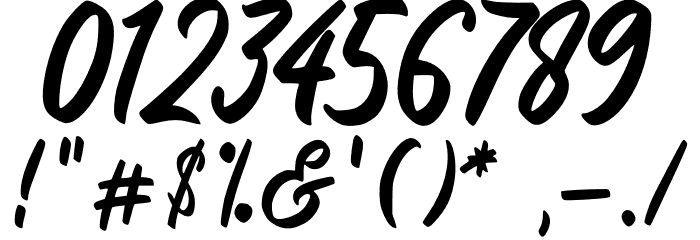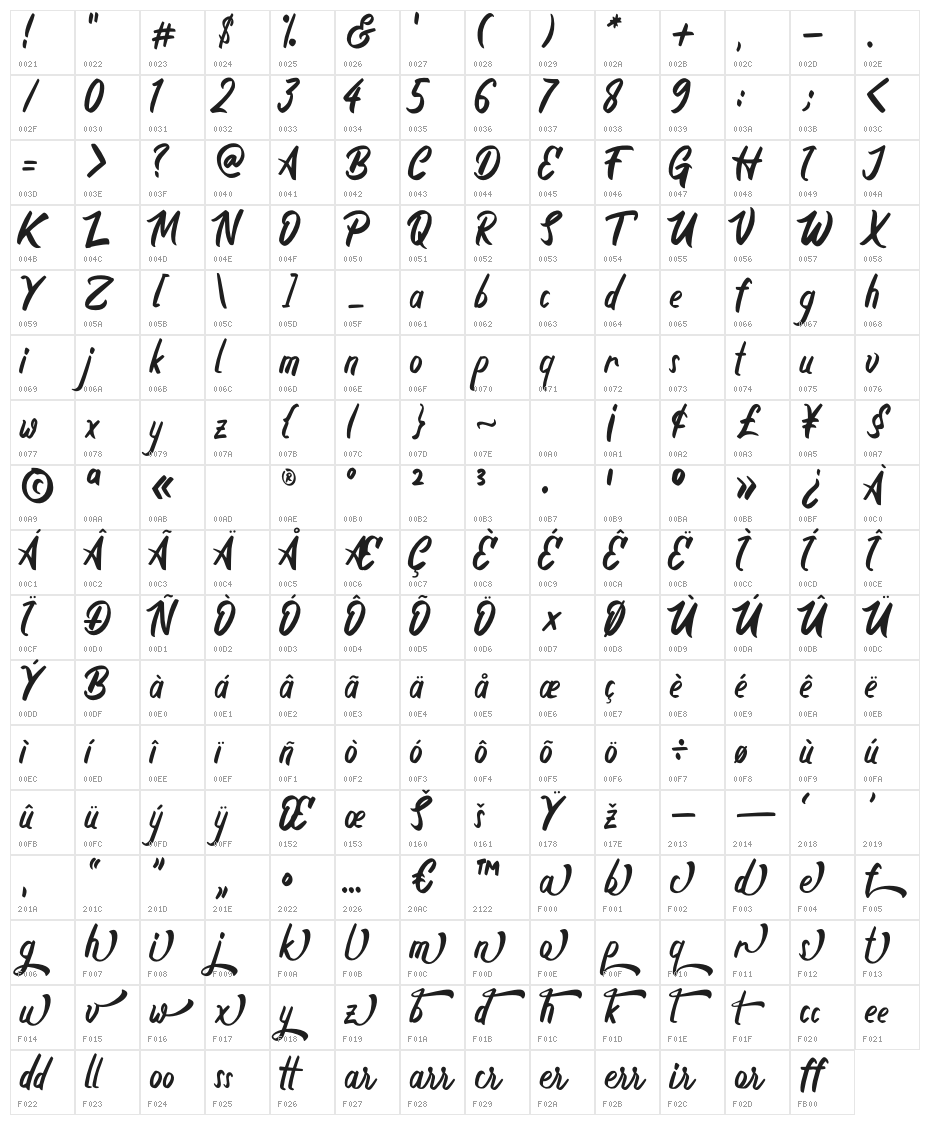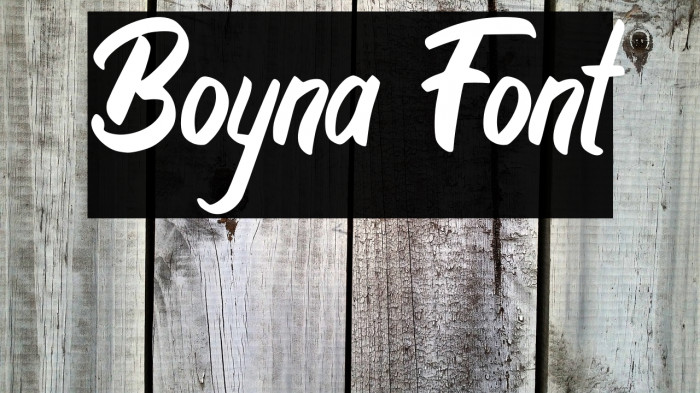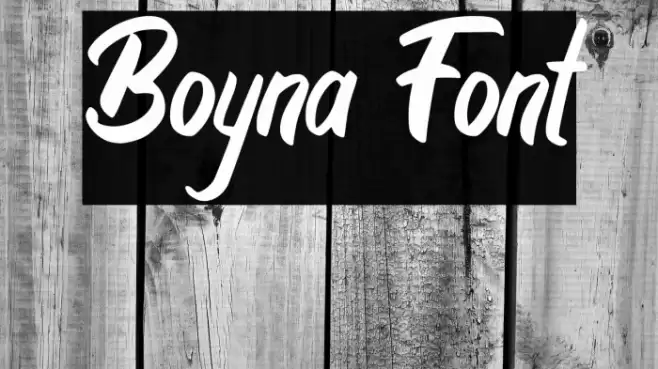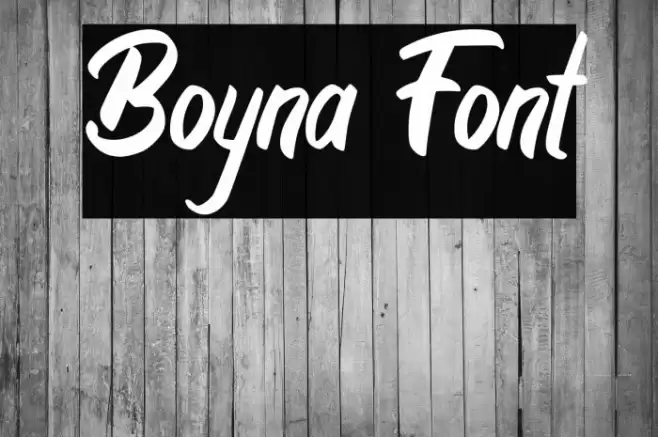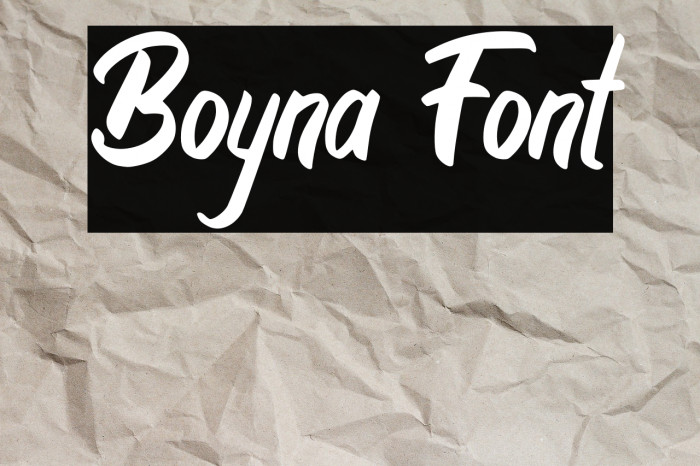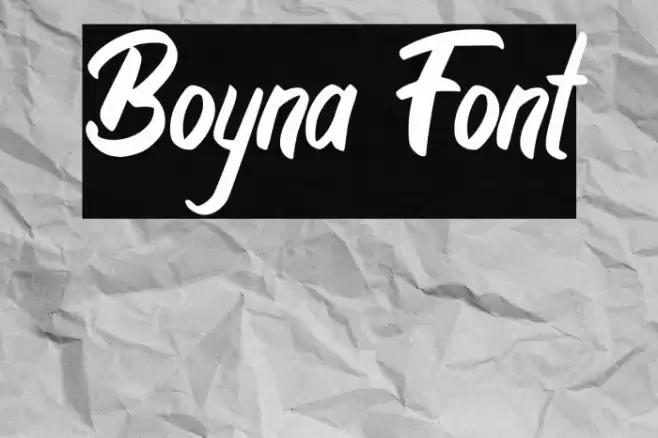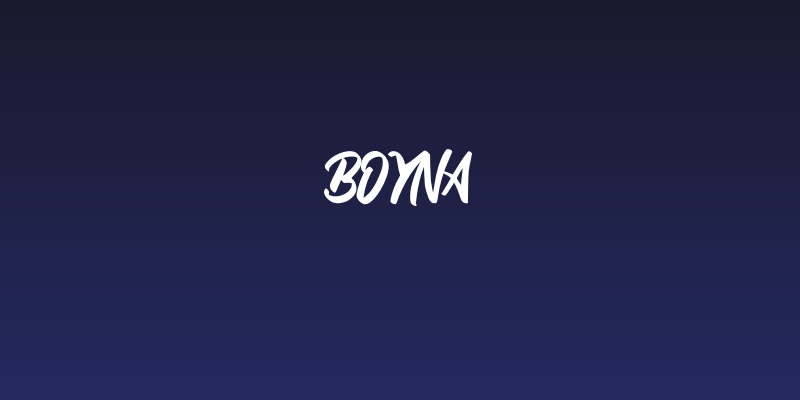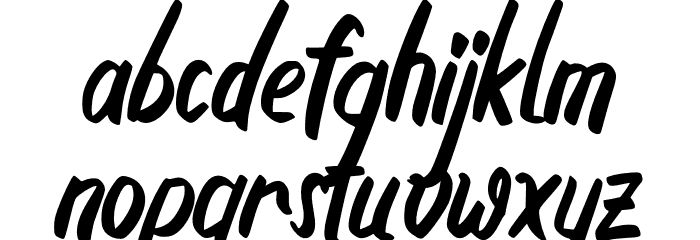
Boyna Font
Boyna Description
This font features a bold, energetic script style with a dynamic flow and expressive character. The letters are slightly slanted, giving a sense of movement and vitality. The strokes are thick and consistent, creating a strong visual impact. The uppercase and lowercase letters maintain a cohesive style, with smooth curves and sharp angles that enhance readability. The numerals and special characters are designed to match the overall aesthetic, ensuring versatility in various design contexts. This font is ideal for projects that require a lively and engaging typeface.
| Proposed Projects | Ideal for branding, posters, invitations, and any design needing a lively, engaging typeface. |